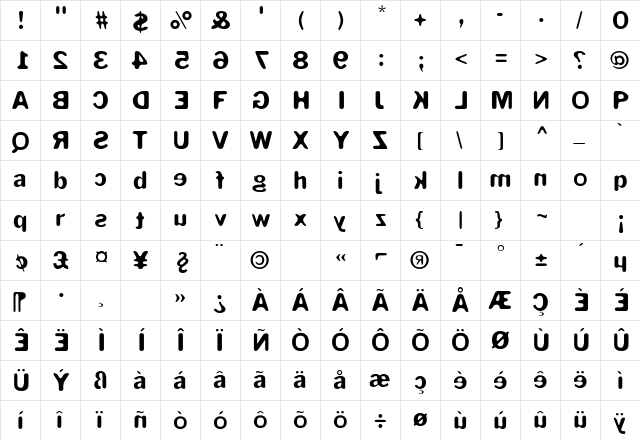
IdealCopy Ambitious
Design Context for IdealCopy Typeface
IdealCopy offers clean, dependable letterforms without strong stylistic allegiance, making it a practical choice for designers who need flexibility.
Pro Tip: Pair IdealCopy with a font of contrasting weight or personality to build a more expressive typographic hierarchy.